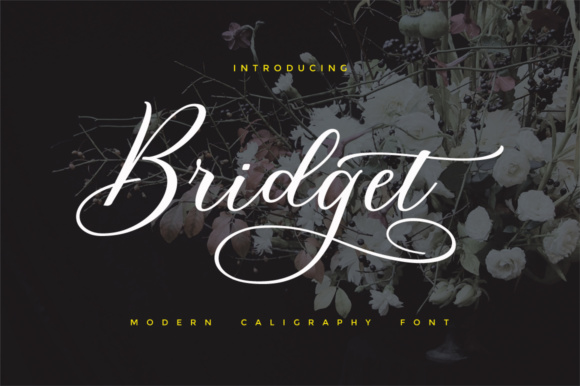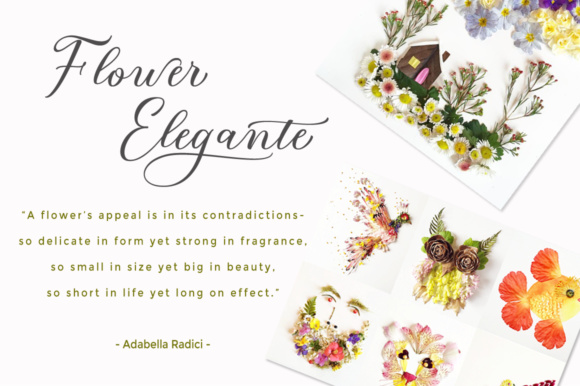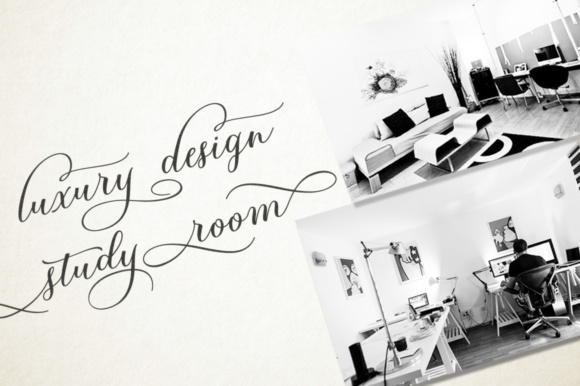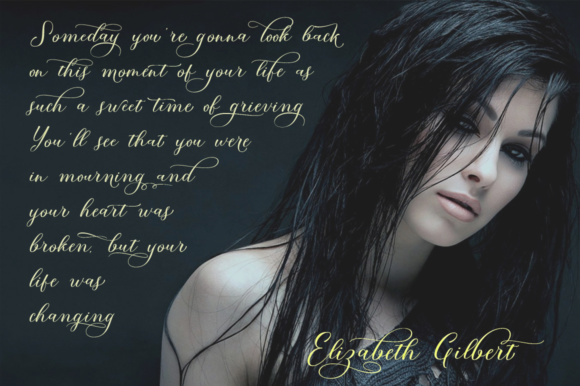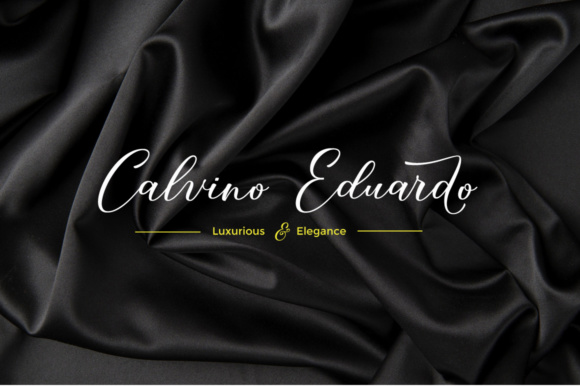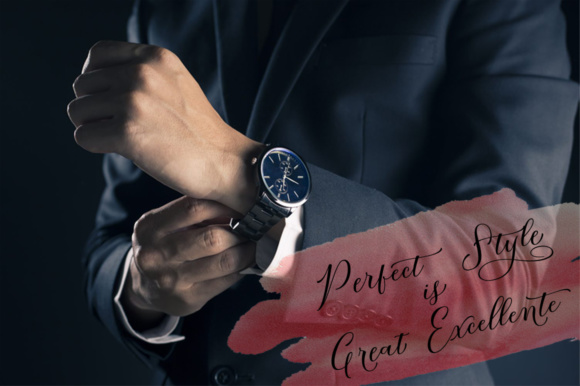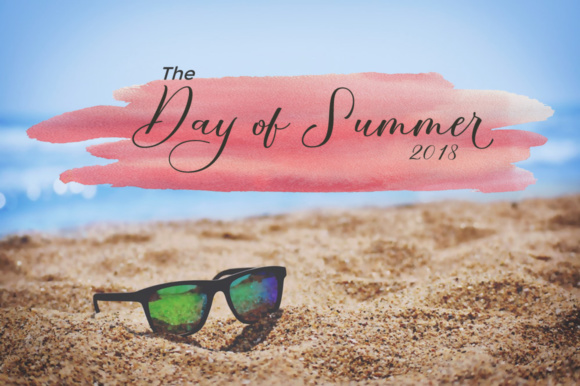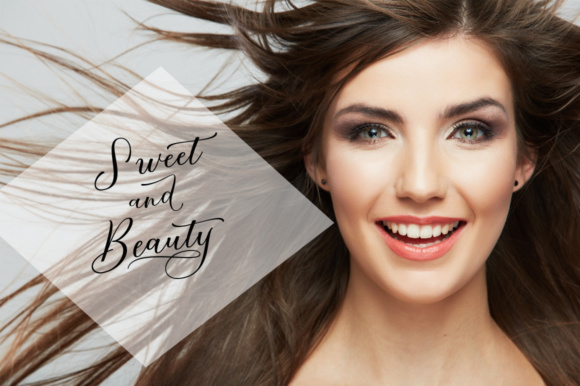
Bridget Script Font
About Bridget Script Font
The Bridget Script is a fresh, modern script that has a calligraphic-style. It’s decorative characters are dancing on the baseline, making your texts flow on the screen.
It works great for a large range of projects. Because this font is quite feminine, it works great for wedding invites, combined with floral designs, personal branding and much more.